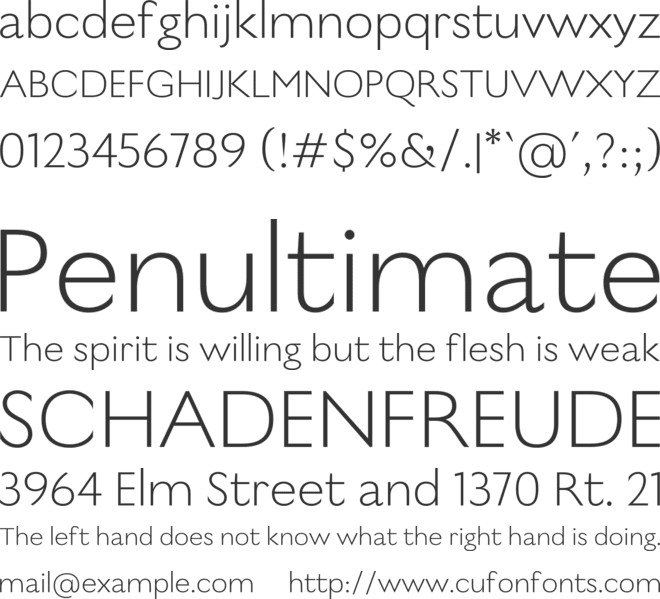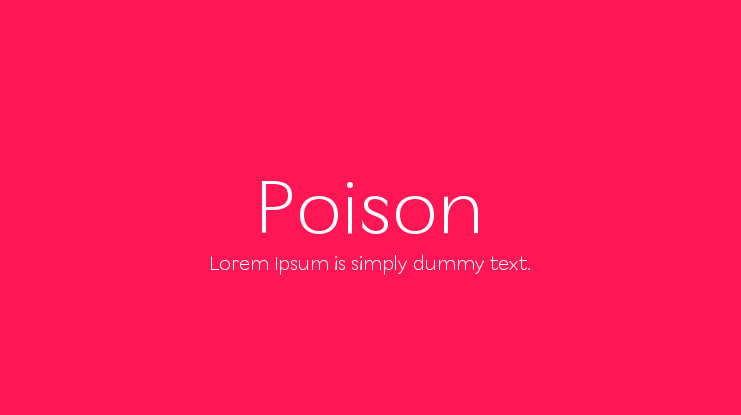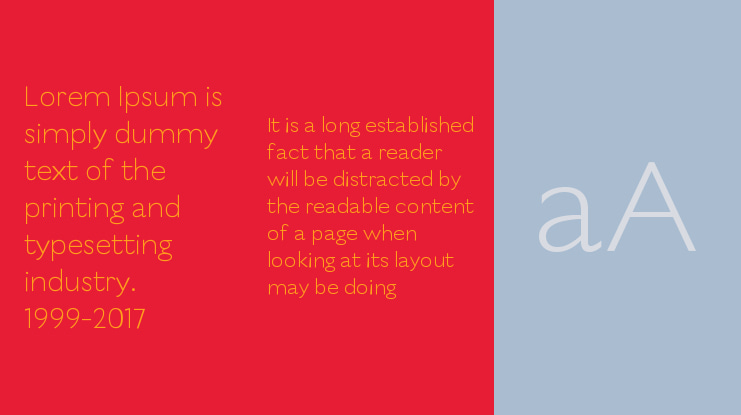
Poison Font
Poison : Latin Display typeface | Genre: Love, Noir, Passion, Lifestyle, Fashion, Glamour | Designed by Jaikishan Patel | Cover photoshoot by TashveerBaaz Explore more at: https://magictype.in/poison/
Poison is a Latin display typeface, belongs to the genre of beauty that is obsessed by the glamour and fame at the cost of being toxic.
Just a bit more than perfection. There is nothing good or bad in itself. It's only the amount in which it has been served makes it so. I will poison you the moment I start growing in you, more than you. Everything that I have cured in you is going to rule you in return. As Poison.